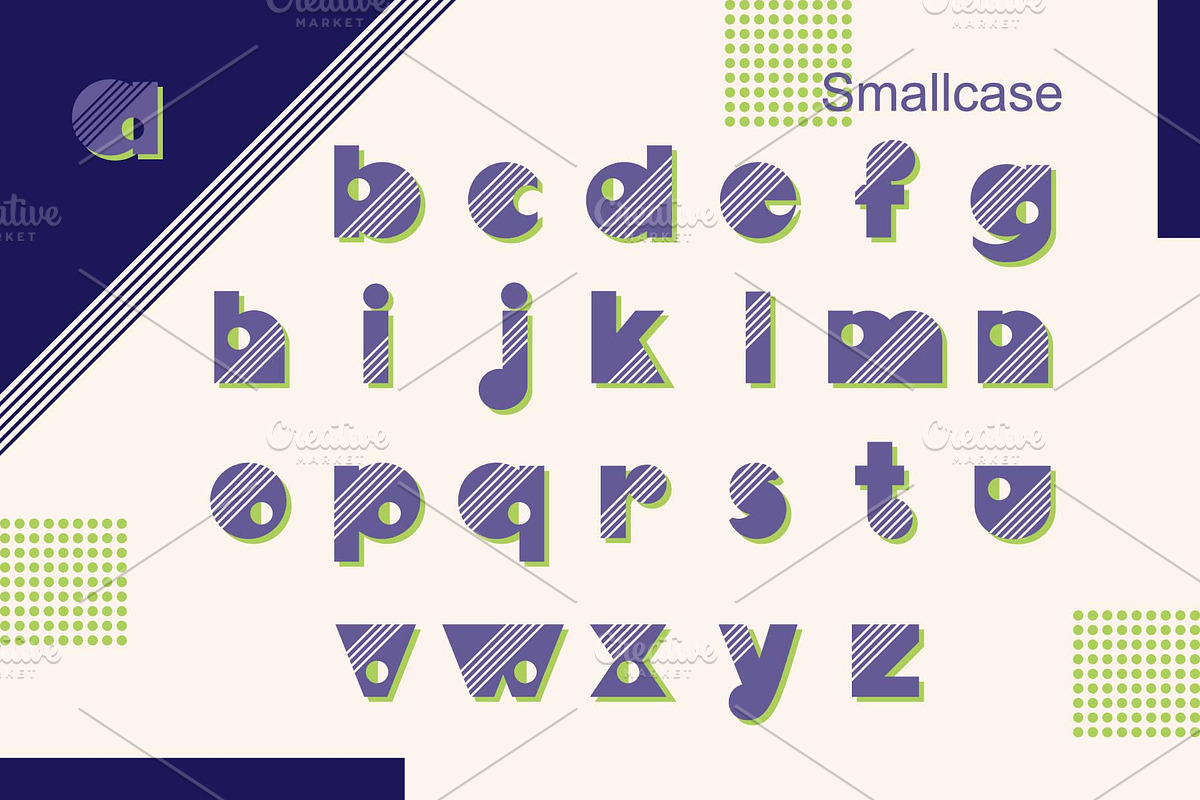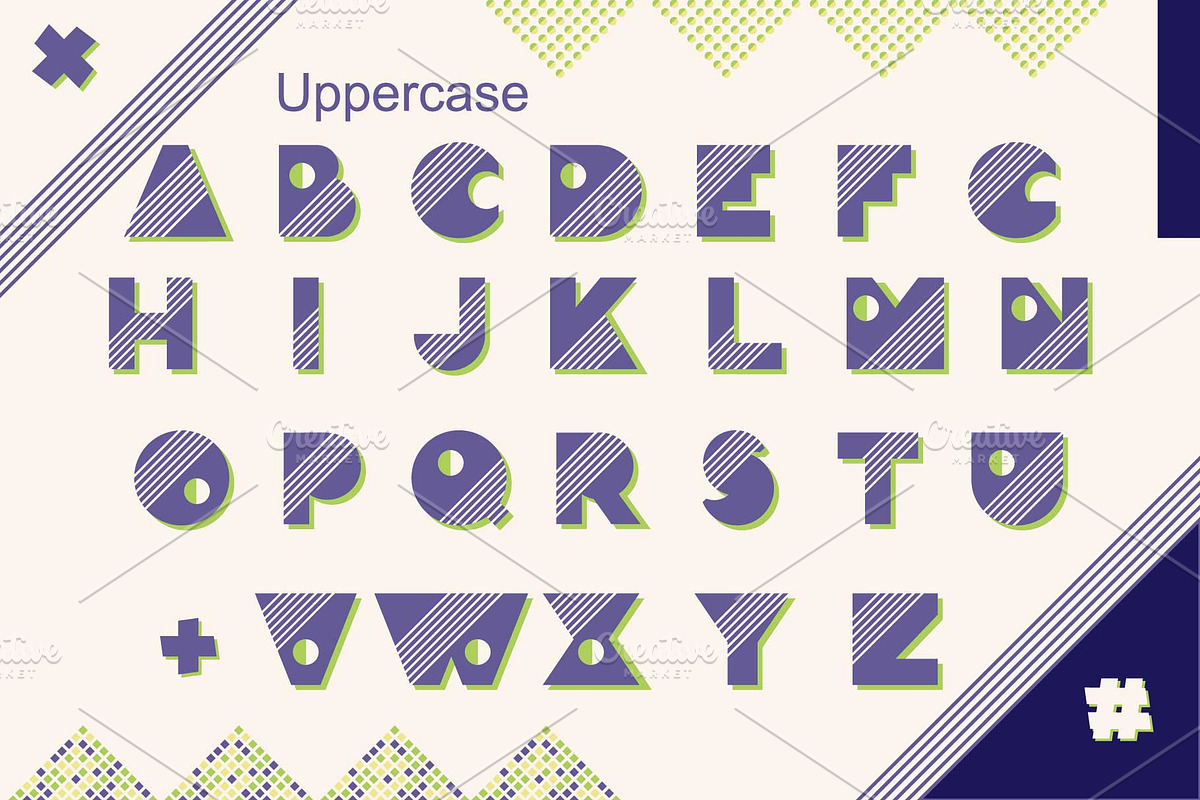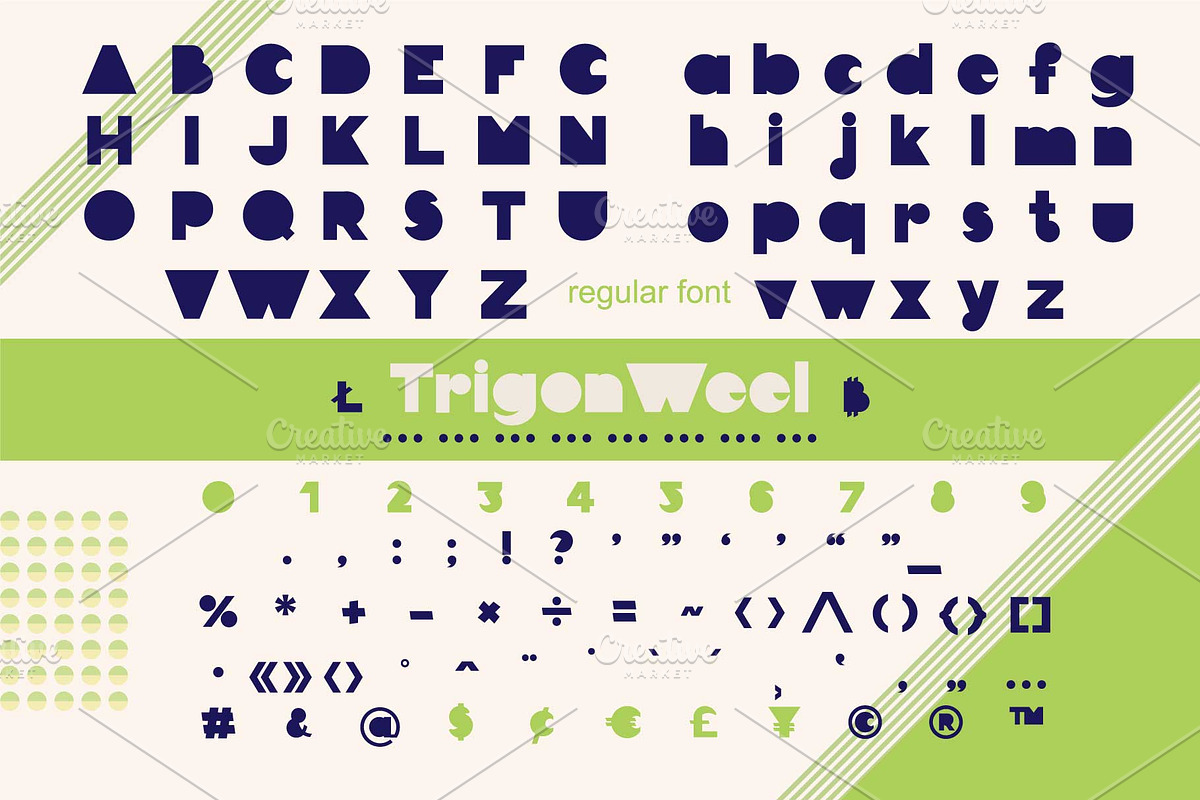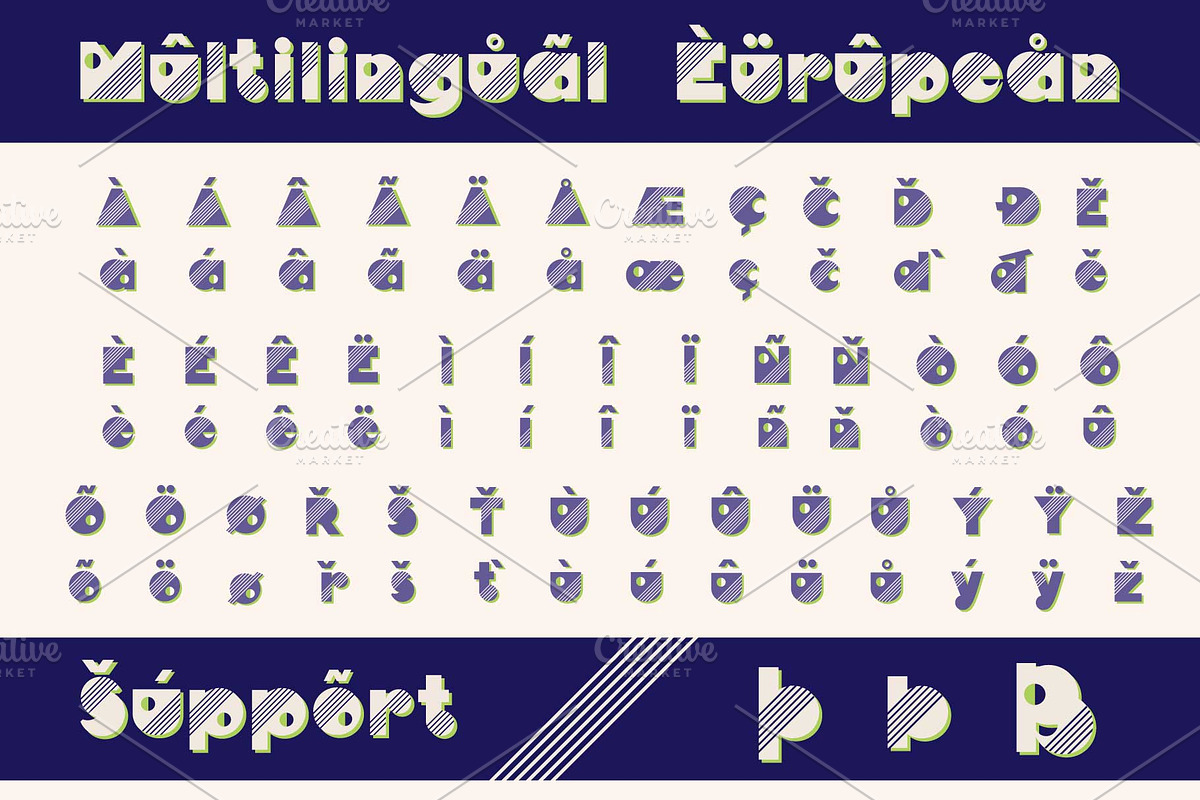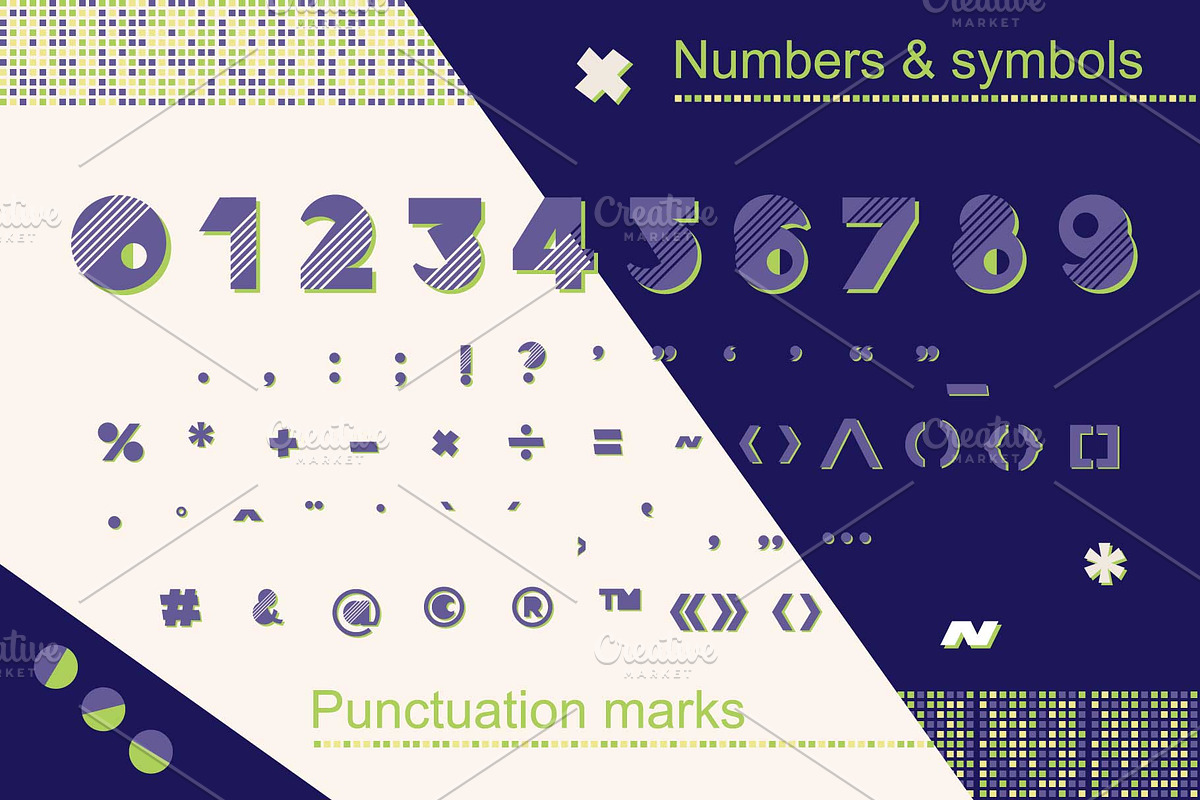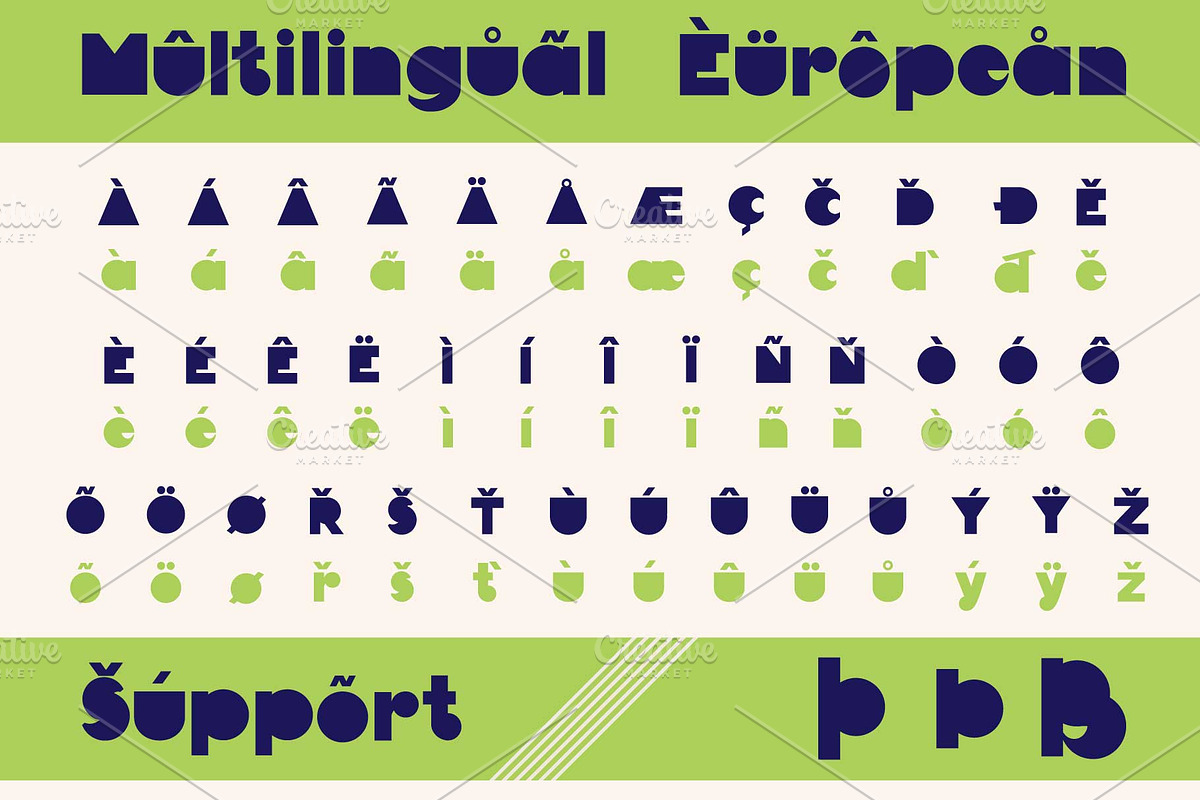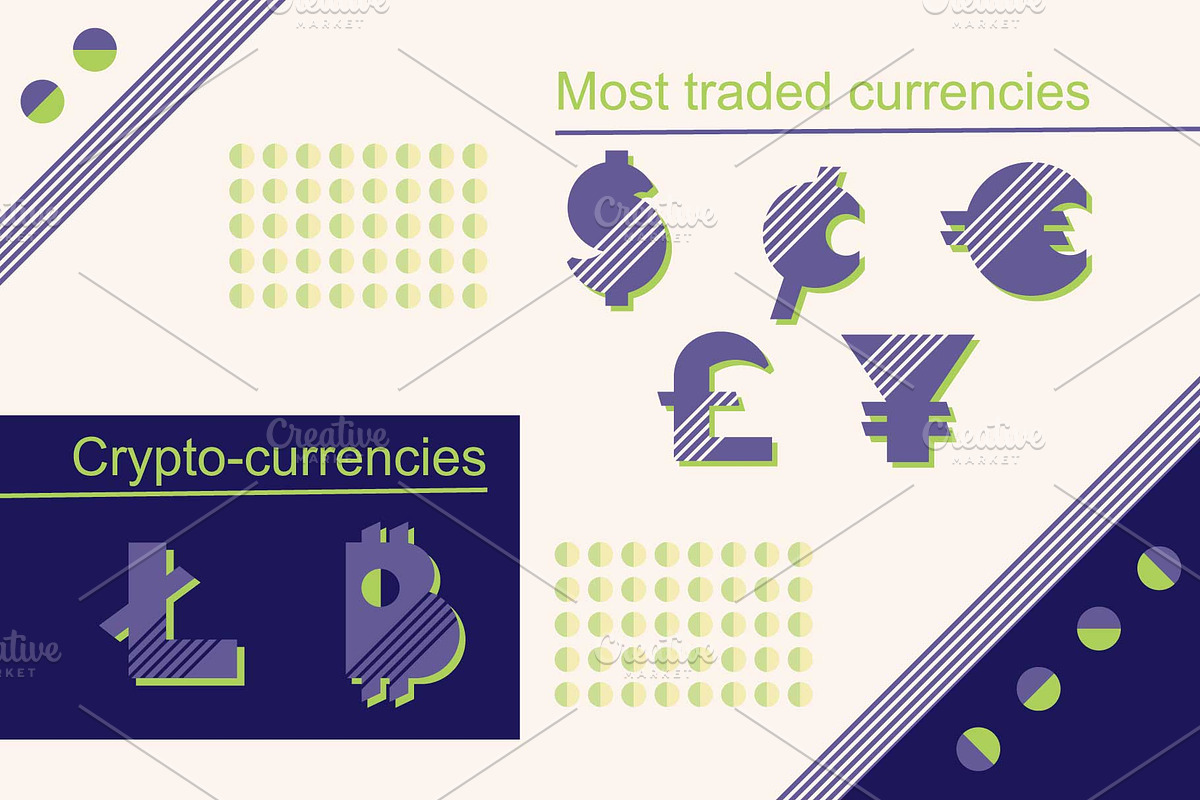
TrigonWeel color OTF font
Modern display colorful grotesque sans-serif font. It’s a stunning geometric display font in 80s style, perfect for completely contemporary designs that need a color block appeal. This gorgeous font comes in both OTF and SVG file types, making this color font versatile enough to suit all your design needs: logos, quotes prints on t-shirts, modern typography posters, children posters and lovely cards and… other. OpenType Font was designed with Fontself Maker in Illustrator CC. Contains CAPITALS & STRINGS letters, NUMERALS & DIGITS, PUNCTUATION, MULTILINGUAL.
Bonus: Colorful vector alphabet, numerals and punctuations, in 80s style. With multicolor Vector alphabet, you can manipulate letters in form of vector shapes in Illustrator i.e. What you get:
- Contains CAPITALS & STRINGS letters, NUMERALS & DIGITS, PUNCTUATION, MULTILINGUAL.